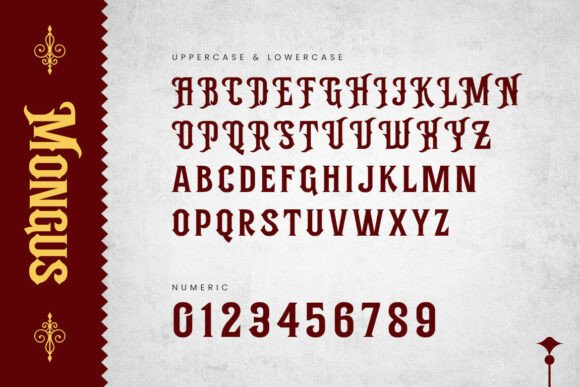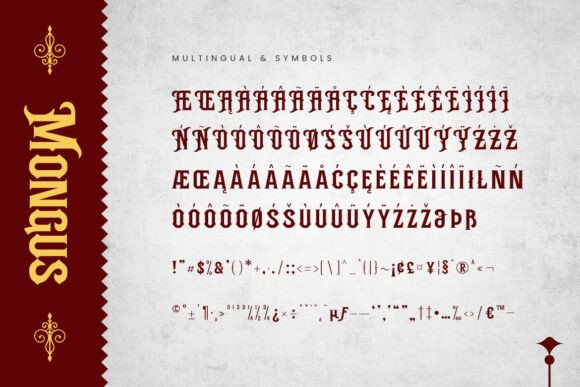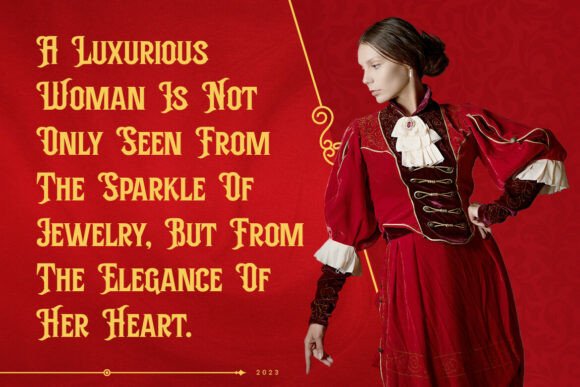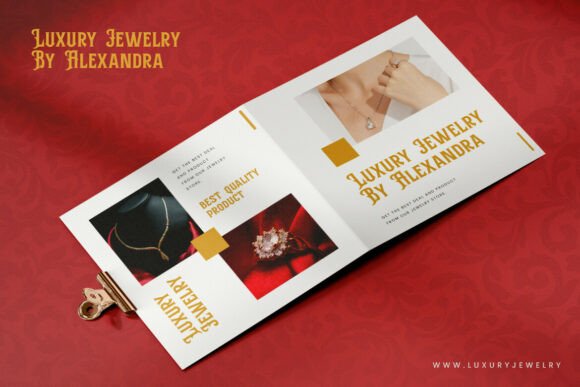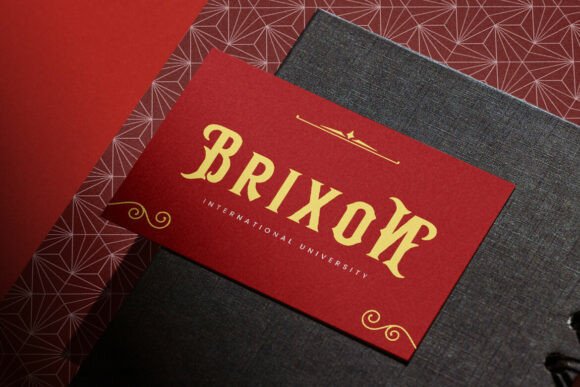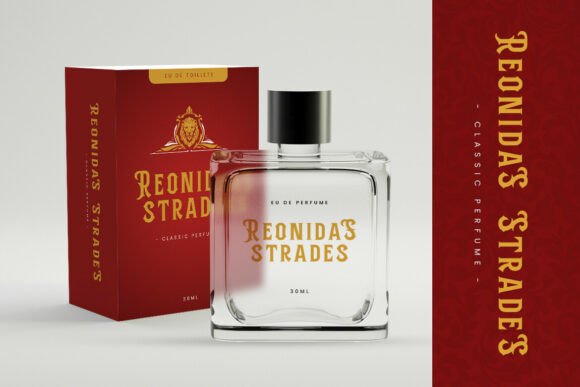
Unveiling the Timeless Elegance of Mongus Font
Have you ever stumbled upon an old, leather-bound book in a dusty attic, its yellowed pages filled with intricate lettering that transports you to a bygone era? That’s the magic of Mongus Font – a magnificent Victorian-style typeface that captures the essence of a bygone age with its bold, classic design and ornate serifs.
As a designer, you’re constantly on the lookout for high-quality design resources that can elevate your creative projects. Mongus Font is an exceptional addition to your toolkit, offering a perfect blend of historical artistry and modern readability. Its extensive multilingual and symbolic support, combined with its rich, decorative character, makes it an ideal choice for branding, headlines, logos, posters, and more.
Key Features of Mongus Font
- High-quality design resource ideal for creative projects and professional use.
- Unique, hand-drawn style with intricate details and subtle texture, making it perfect for adding a touch of elegance to designs.
- Designed with precision and attention to detail, ensuring a high level of consistency across different font sizes and resolutions.
Honest Review: Mongus Font
As a designer, I’m always on the lookout for high-quality design resources that can elevate my creative projects. The Mongus Font has caught my attention, and I’m excited to share my honest review.
- Unique and creative typography – The Mongus Font offers a distinct and modern feel that can add a touch of sophistication to any design.
While the Mongus Font is an excellent resource, I’ve noticed a few limitations:
- Limited language support – The font may not be suitable for designs requiring multiple languages, as it’s primarily designed for English text.
Overall, I’m impressed with the Mongus Font’s unique style and high-quality design. While it may have some limitations, it’s an excellent addition to any designer’s toolkit, especially for creative projects requiring a modern and sophisticated touch.
Mongus Font
For the best results, use the Mongus Font on high-quality images and in combination with other design elements. Experiment with different font sizes and colors to create a unique look.
The Mongus Font is perfect for:
- Blog posts and articles
- Business cards and flyers